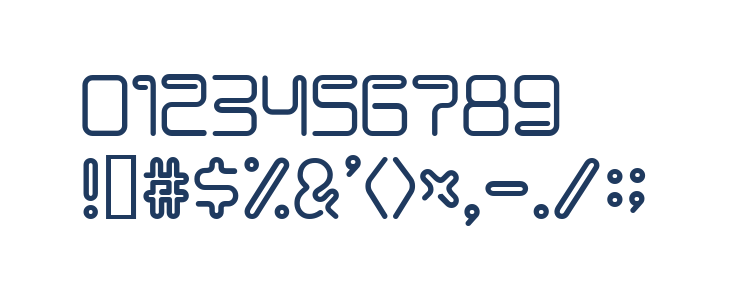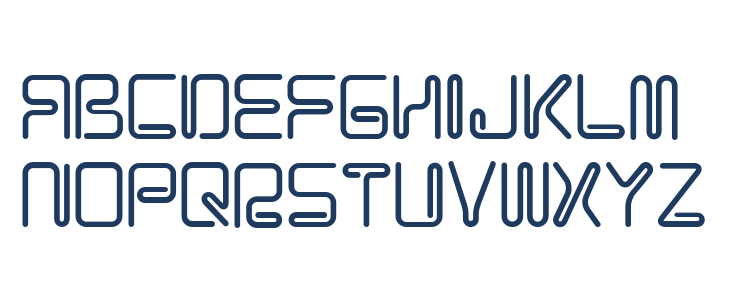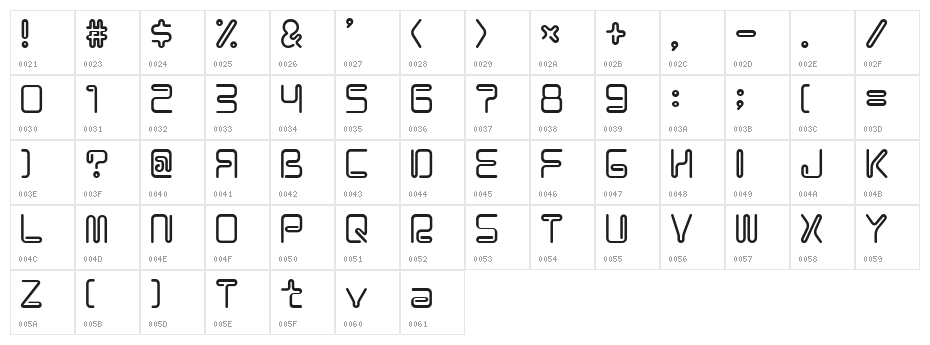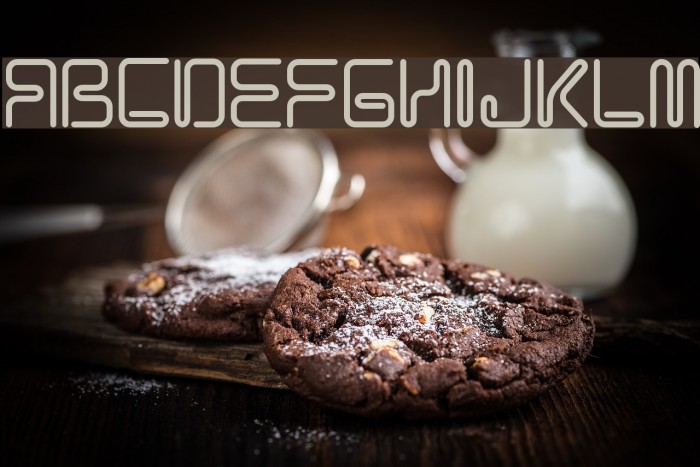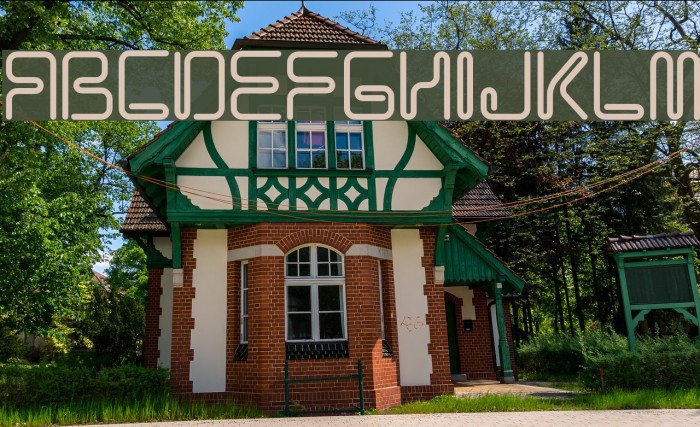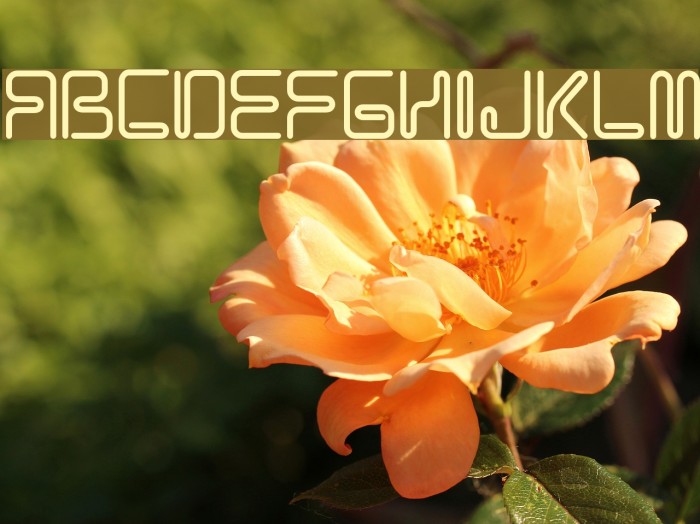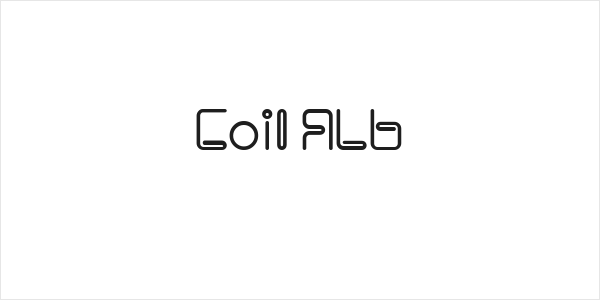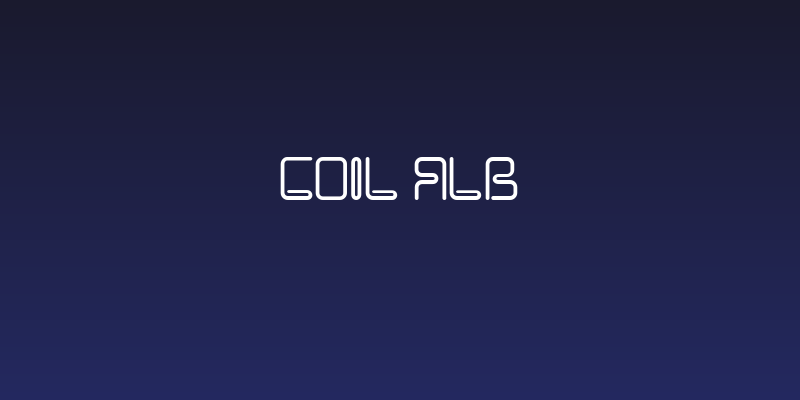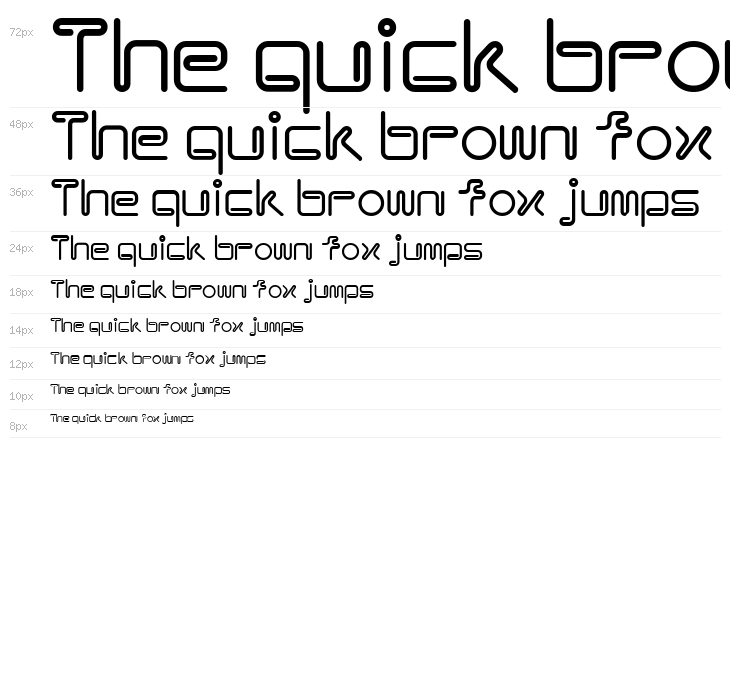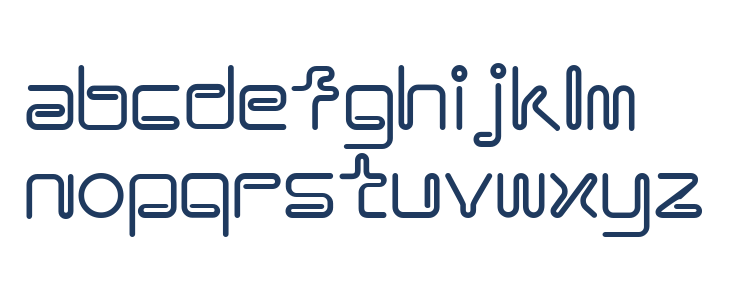
Coil ALb Font
Coil ALb Description
This font features a modern, geometric design with a distinct tubular appearance. Each character is crafted with rounded edges and consistent line thickness, creating a cohesive and futuristic look. The uppercase and lowercase letters maintain a uniform style, with a playful yet structured form. Numbers and special characters follow the same design principles, ensuring a harmonious appearance across all elements. The font's unique style makes it stand out, offering a fresh take on traditional letterforms.
Proposed ProjectsIdeal for tech branding, futuristic posters, digital art, and modern advertising.